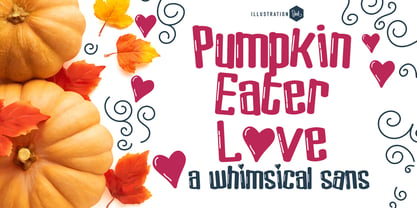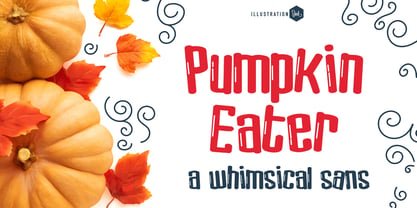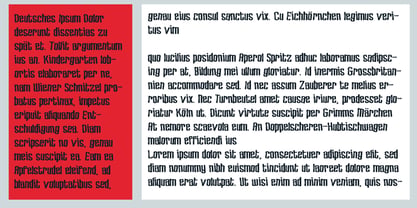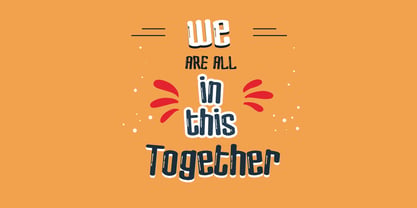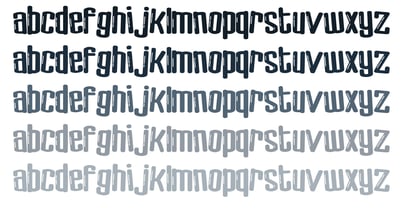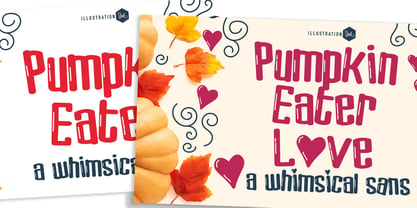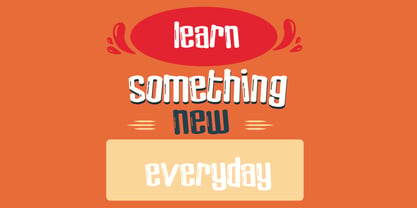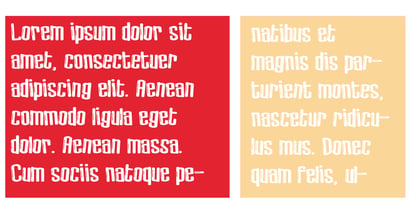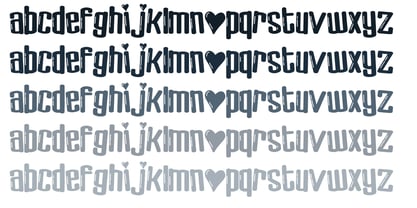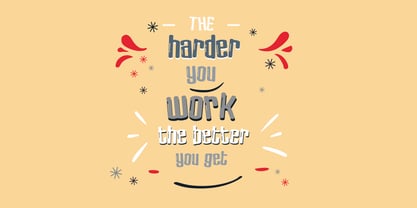
PN Pumpkin Eater
by Illustration Ink
The PN Pumpkin Eater Font Family was designed by Illustration Ink and published by Illustration Ink. PN Pumpkin Eater contains 12 styles and family package options. More about this family
This hand-crafted font is a whimsical, hand-crafted sans serif with lots of toggle. Several family members sport highlights and some sport hearts. There are 12 variations included. A hand-crafted font is a font that is designed to look like it was written by hand. It is often used for invitations, greeting cards, and other items. Handwritten fonts can be either formal or informal, and they can be used for a variety of purposes. Some of the characteristics of handwritten fonts include: The letters are not perfectly uniform in size or shape. There may be slight variations in the spacing between letters and words. The font may have a "wiggly" or "squiggly" appearance. The font may be difficult to read at small sizes. Handwritten fonts can be a great way to add a casual touch to your designs. They can also be used to create a sense of nostalgia or whimsy. However, it is important to choose a handwritten font that is appropriate for the project you are working on. A formal handwritten font may not be appropriate for a casual invitation, while an informal handwritten font may not be appropriate for a corporate document.
Designers: Illustration Ink
Foundry: Illustration Ink
PN Pumpkin Eater